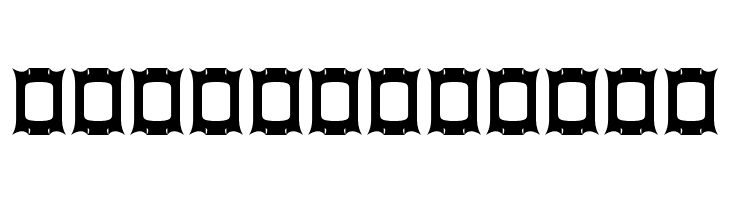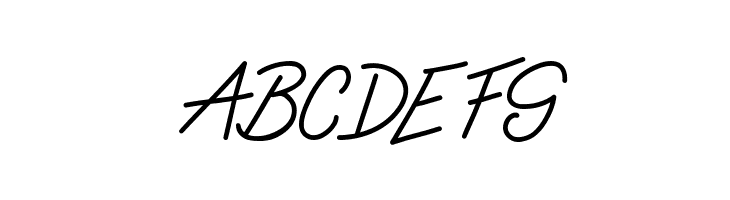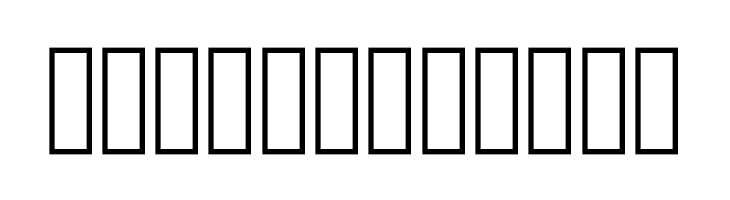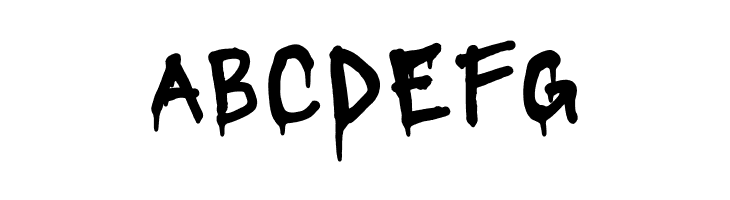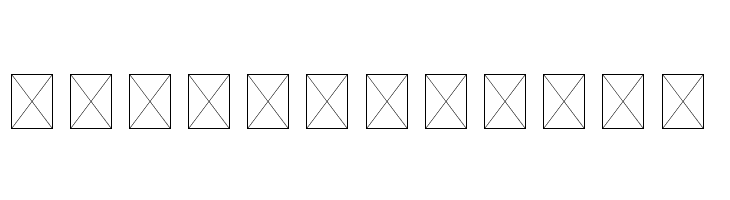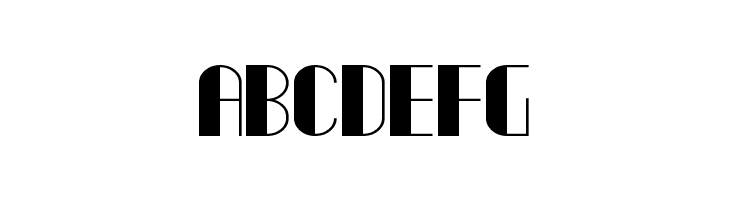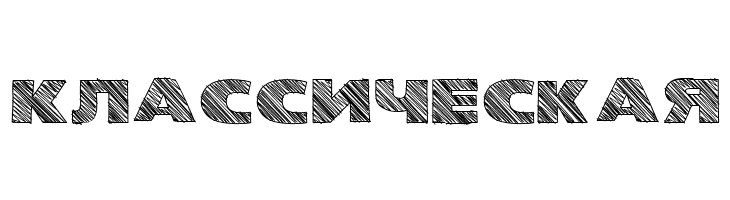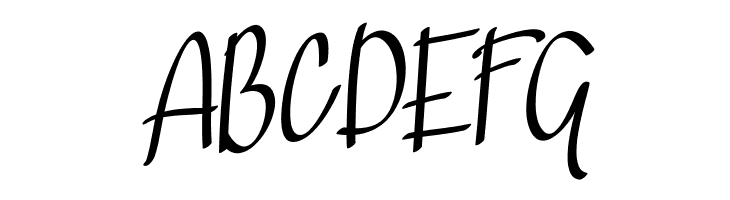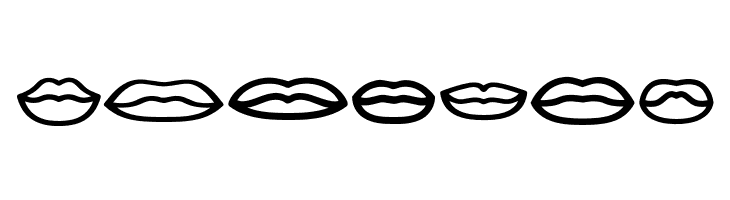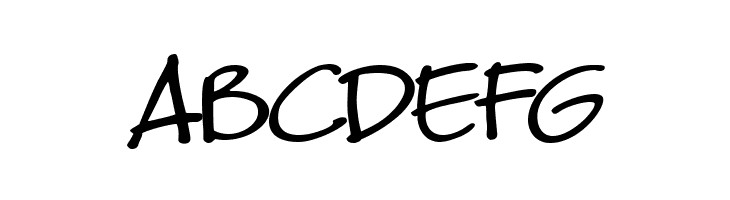
• Kwixter Sketch
A bold, sketch-textured font with a hand-drawn appearance.
• Kyoto Northern
A dynamic handwritten font with fluid, slightly irregular strokes and a playful vibe.
• La Nana DEMO
• La Oriental
A bold, geometric font with sharp, angular characters.
• La Oriental Bold
A bold, geometric font with sharp edges and a blocky style.
• La Vista
A modern, elegant script font with flowing, connected characters.
• Labbra Regular
Whimsical lips-themed decorative font.
• Labirin
A bold, geometric outline font with a maze-like design.
• Labirin
A bold, decorative font with a unique outline effect and geometric structure.
• Laconica Regular
• Lacquer Regular
A bold, graffiti-inspired font with dynamic, hand-painted strokes.
• Ladies First Free
An elegant script font with flowing, cursive style and intricate flourishes.
• Lady Jasmine
A graceful and sophisticated script font with flowing cursive characters.
• Lady Writer
A dynamic cursive script font with elegant, flowing strokes and a modern calligraphic style.
• Lady Writer Skinny
An elegant, flowing script font with thin, graceful strokes.
• Ladybug font regular
A playful and dynamic script font with fluid, connected letterforms.